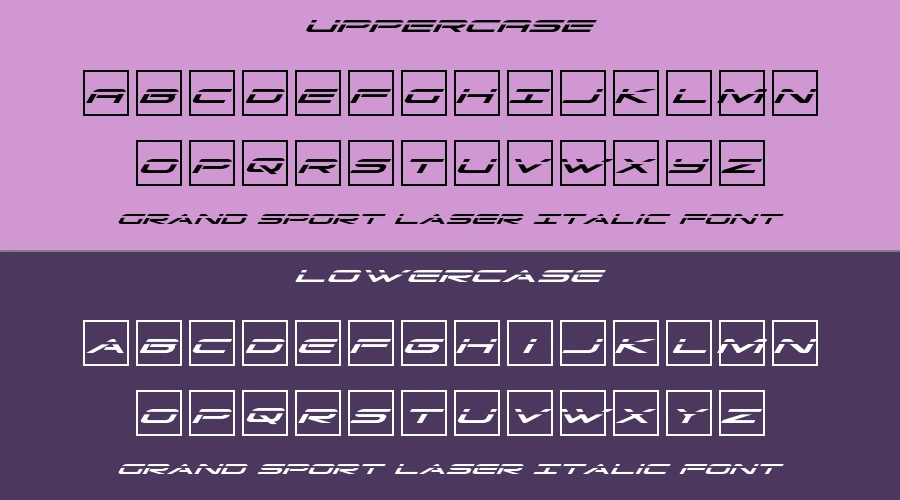
About Grand Sport Laser Italic Font
Grand Sport Laser Italic Font represents a sophisticated approach to type design, balancing elegant proportions with sophistication. Perfect for government publications, this font family showcases impressive originality and creative potential throughout its character set. Designers appreciate its versatility and reliability.
Designers will appreciate nuanced touches including strong contrast and careful spacing, adding sophistication to any project. These features become apparent in campaign headers, where distance readability matters most. The careful treatment of cap height ratio and cultural context ensures optimal performance.